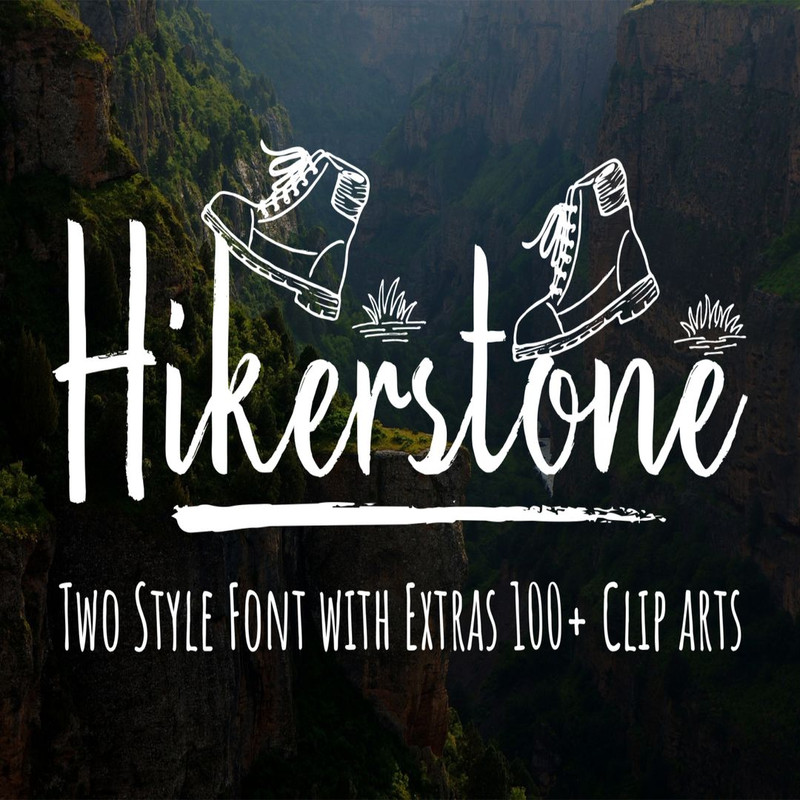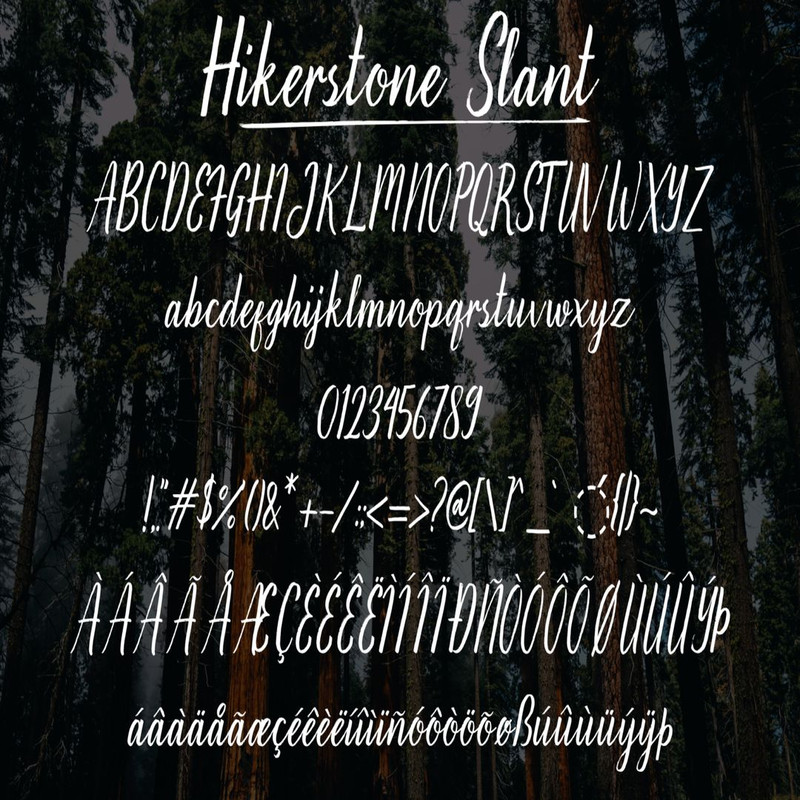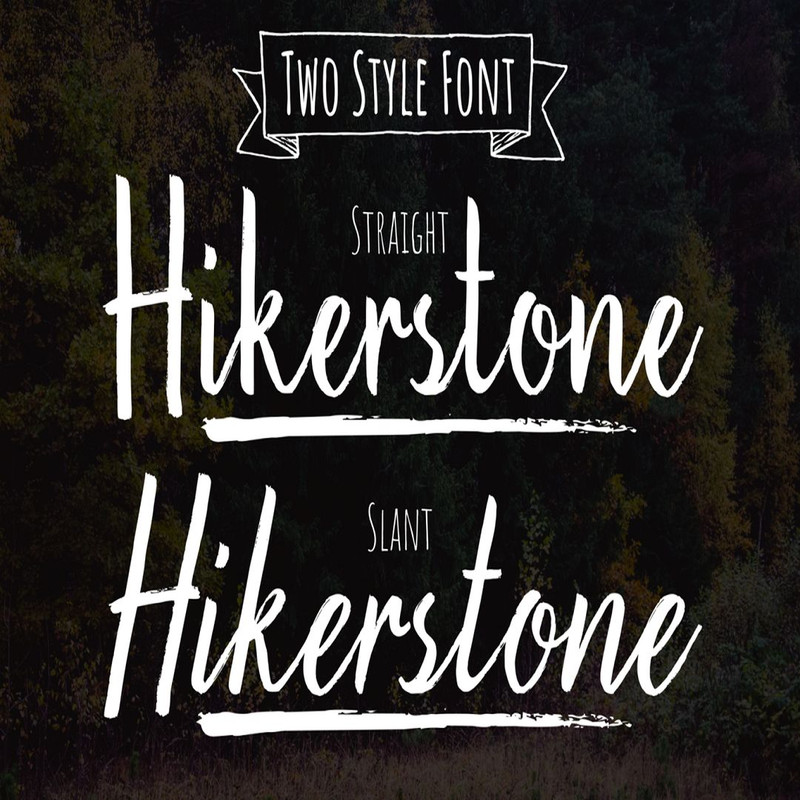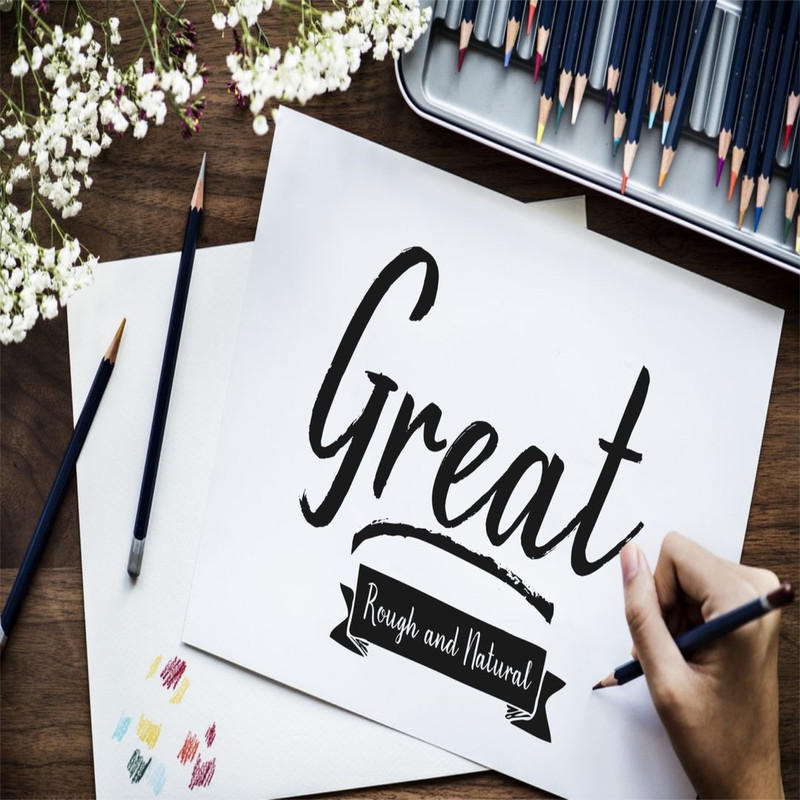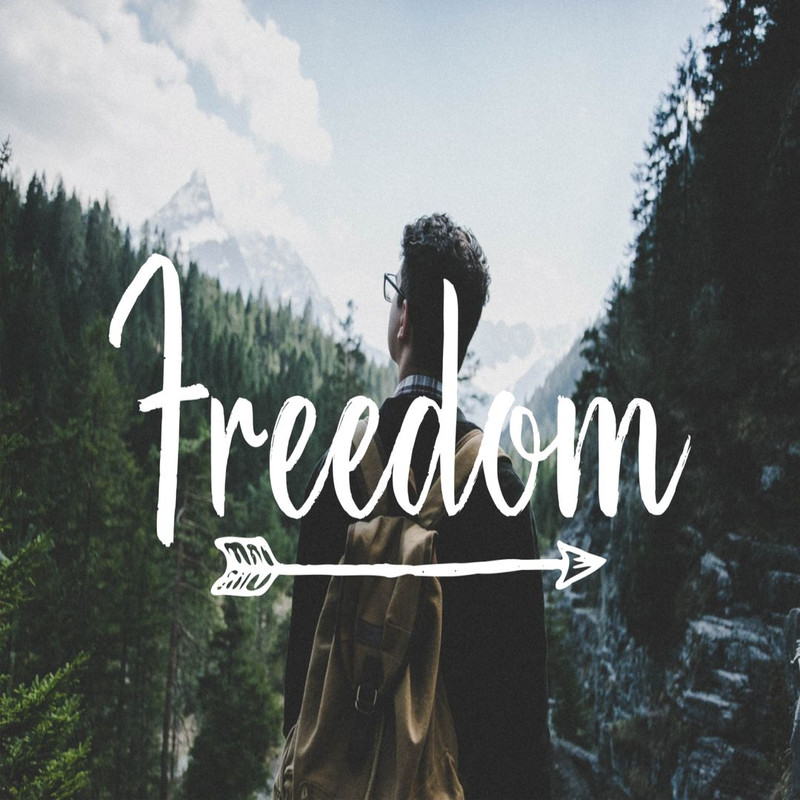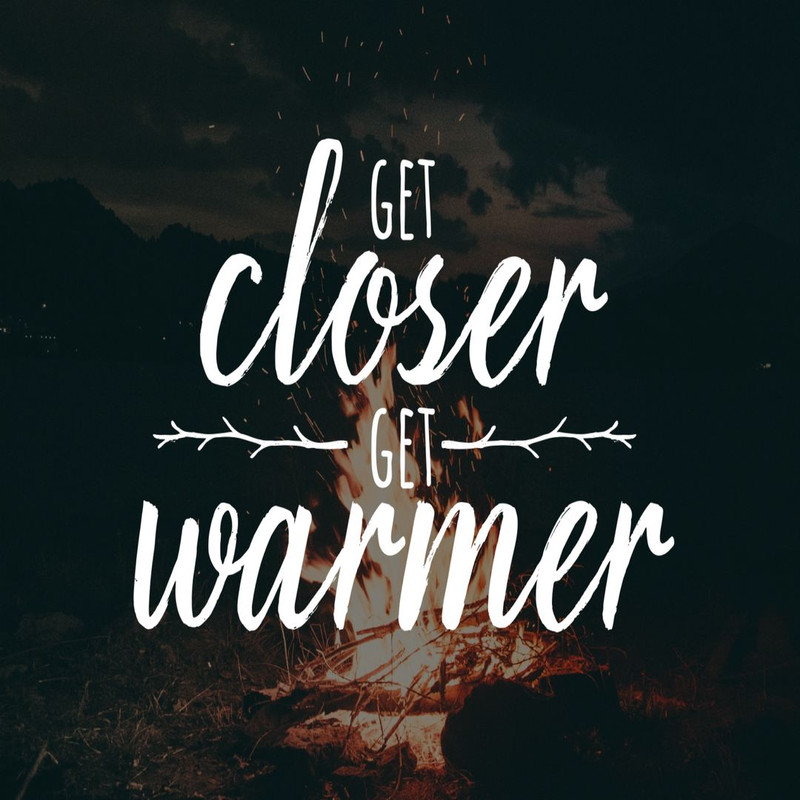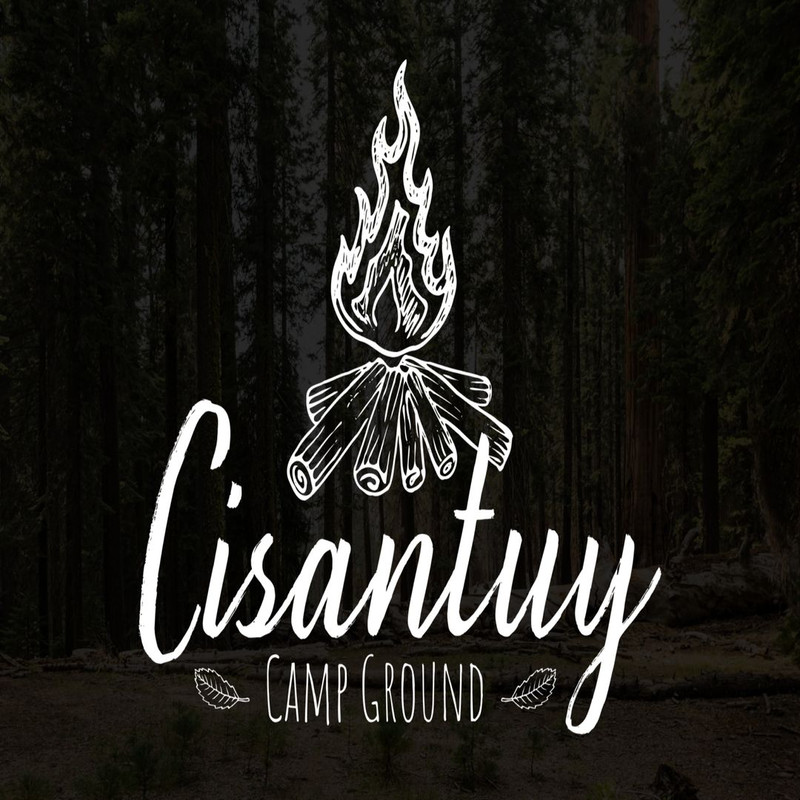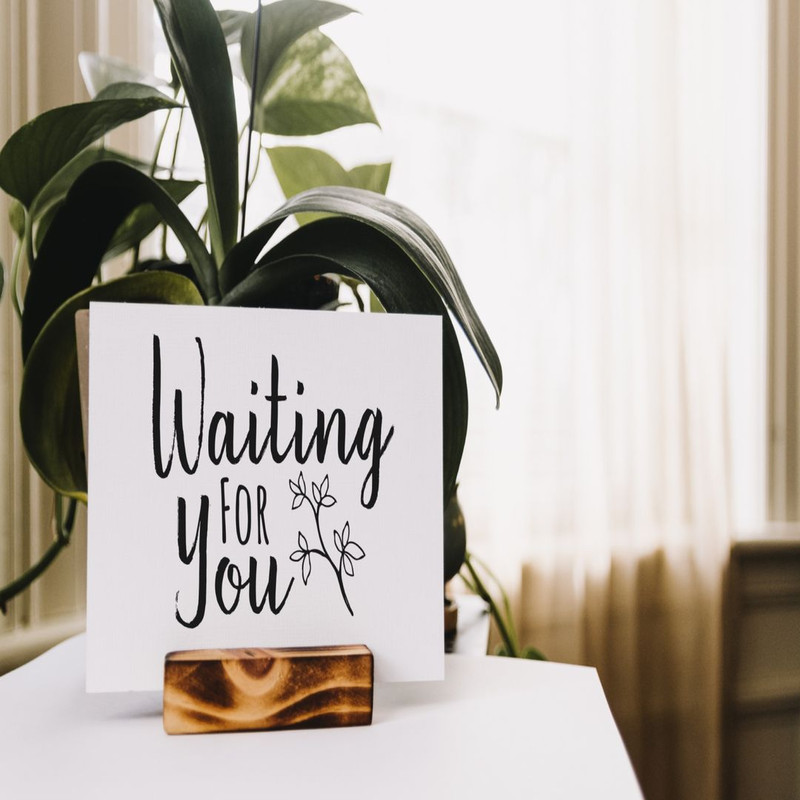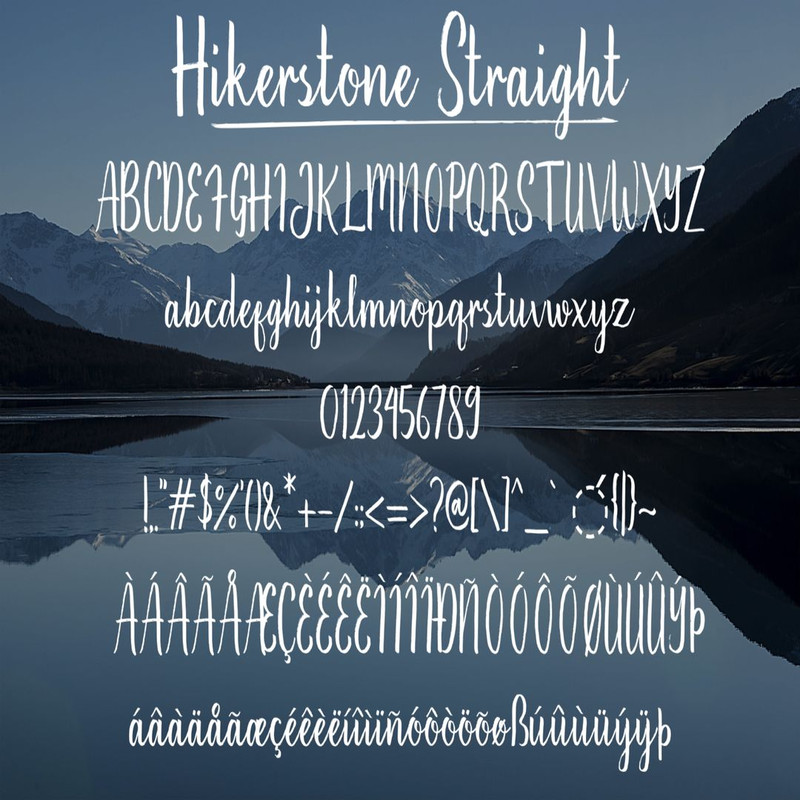
Introducing our product, called Hikerstone.
Hikerstone is a strong brush font. It has a rough and natural look which is great for logos, blogs, clothing, invitation, poster, cafe/resto sign, and many others.
We also make 100+ clip-art vectors for this font, so you can create many many designs for your projects.